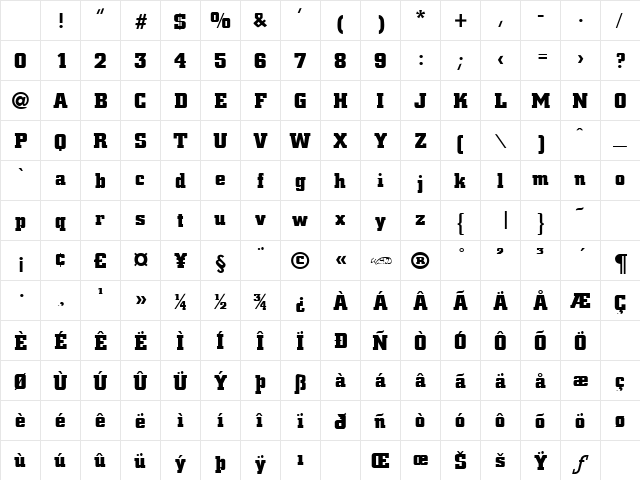
CivicBlack Regular
Complete CivicBlack Regular glyph index. Displaying only characters natively supported by CivicBlack Regular font.
Design Context for CivicBlack
CivicBlack is a composed and adaptable typeface that performs quietly and consistently across a wide range of design contexts.